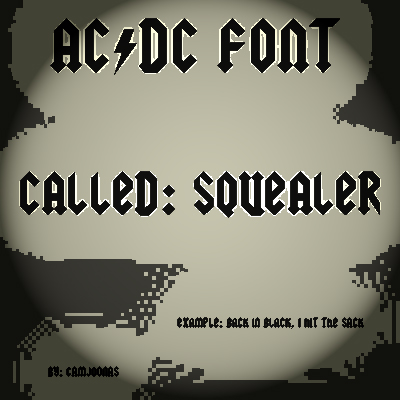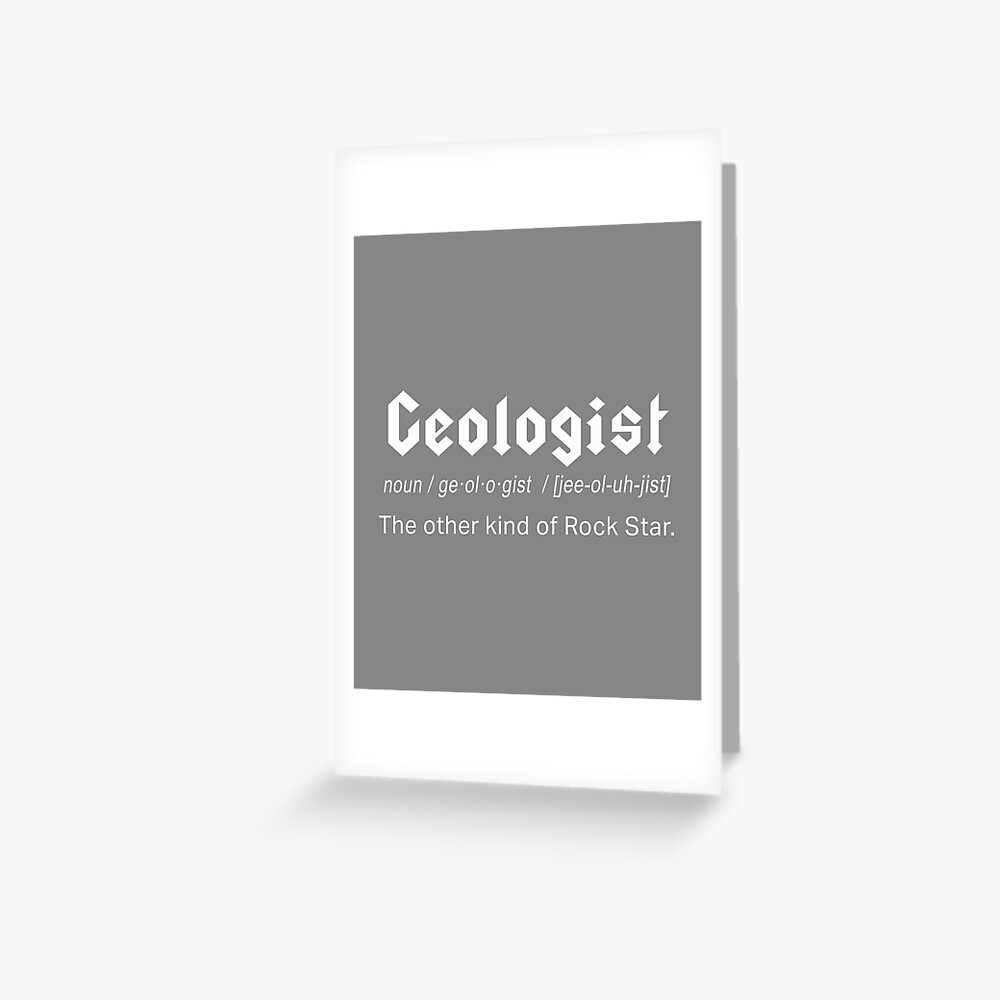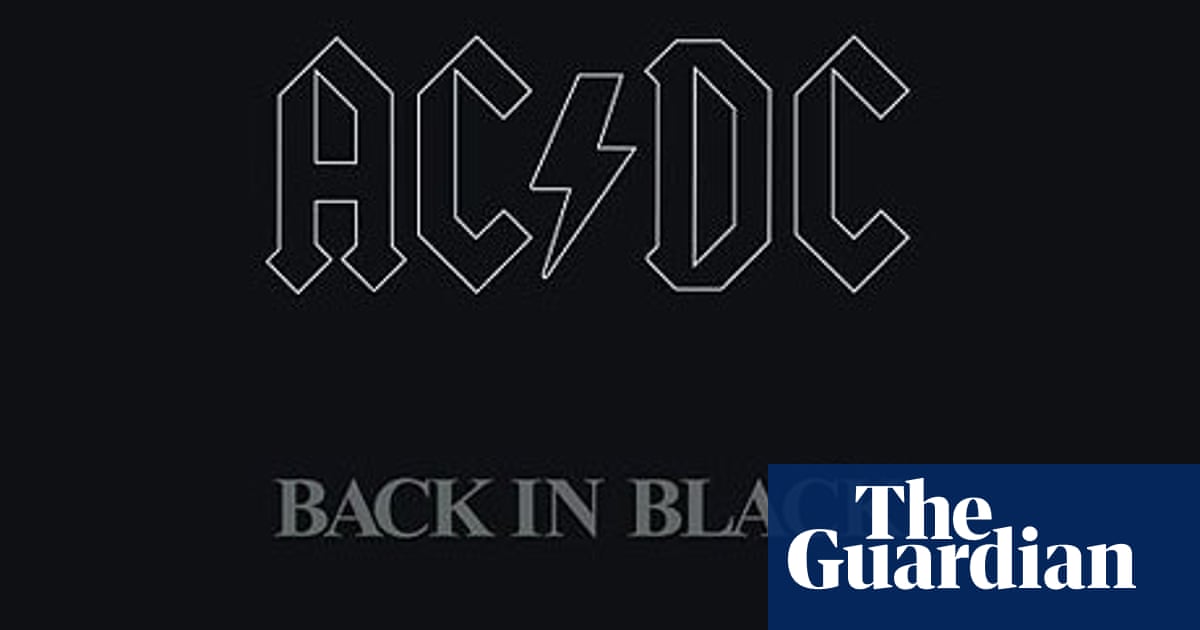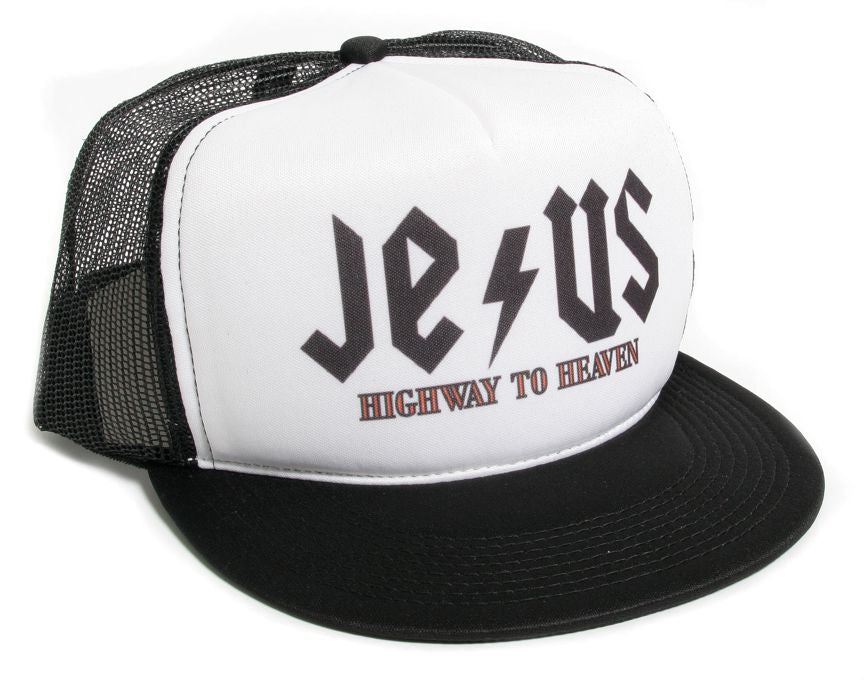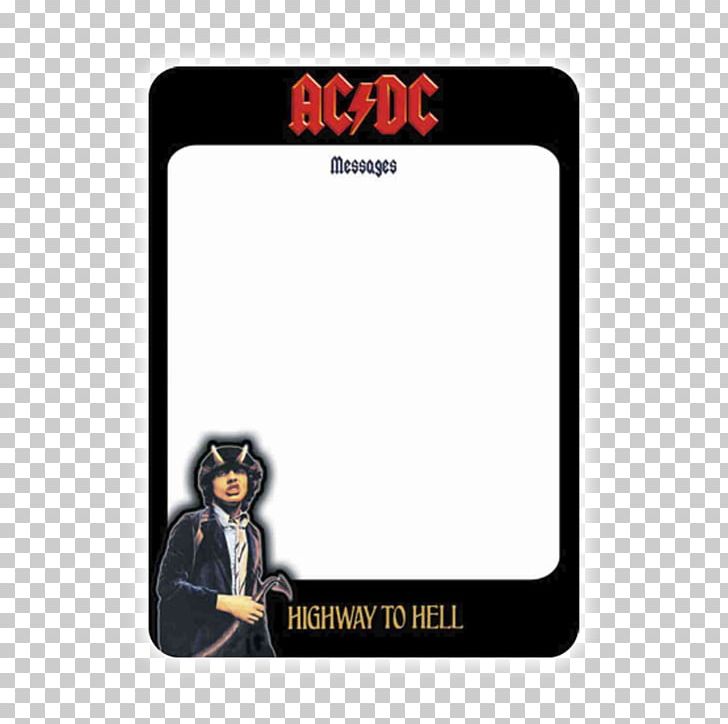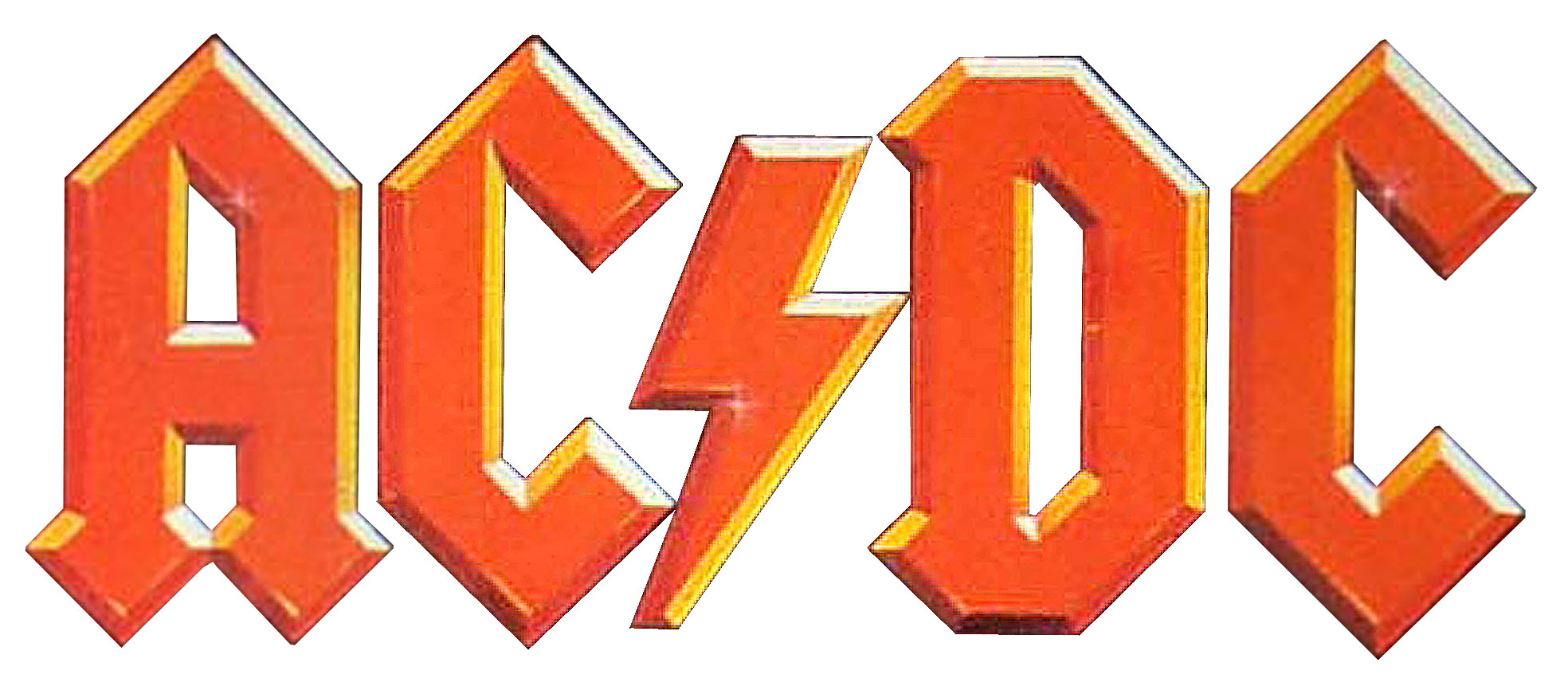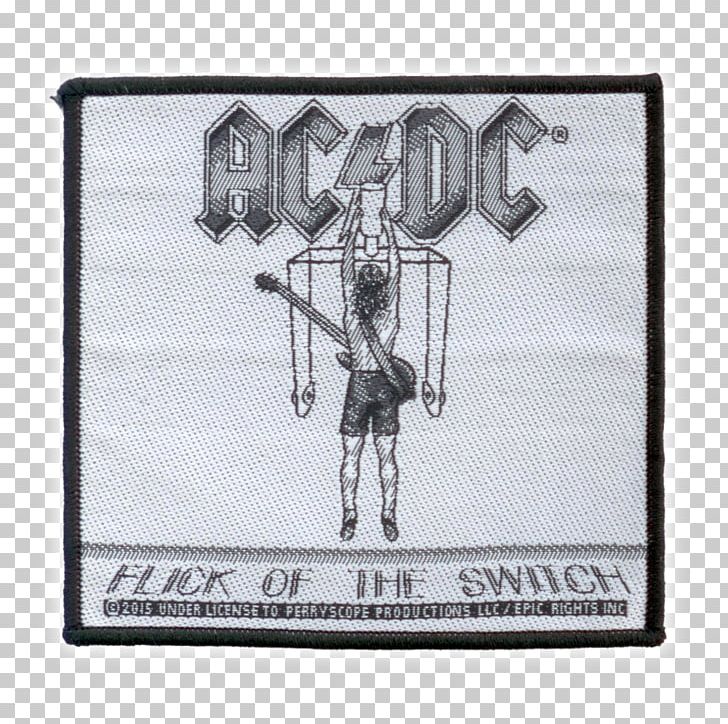
Acdc Font
Or maybe you are just a fan of the ac dc font style.
Acdc font. Squealer is the font used in the acdc logothis font is designed by typodermic fonts. Whatsoever we were able to find some sources where you could get these ac dc lightning bolt fonts or fonts that are. What font is used in the acdc logo. Follow and like famous fonts and keep up with all of the latest additions.
The logo was designed by gerard huerta in 1977 and it features the ac dc text in blackletter with a lightning symbol in the center. Click here to download. Download squealer font family free for commercial use includes squealer regular embossed squealer is a hard rock blackletter headliner. Squealer font is the typeface being using in the logo of the famous australian rock band acdc.
This logo first appeared on the cover of the groups fourth album let there be rock. Are you a fan of the band acdc. This is a free font and is available here. Designed by raymond larabie for type foundry typodermic fonts.